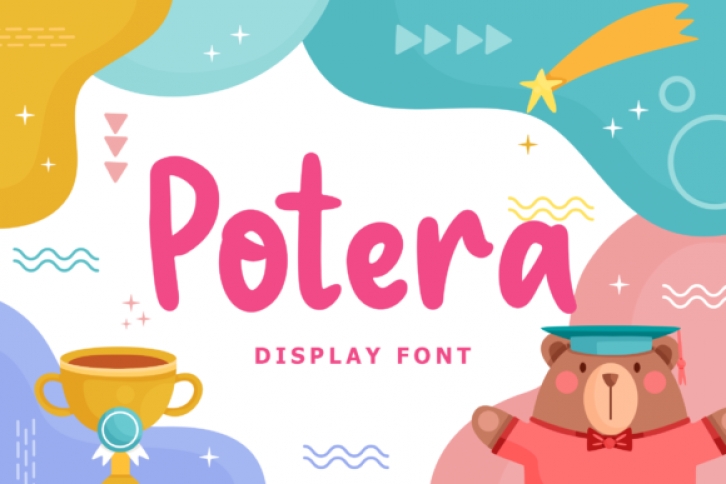
Potera is a cute and playful display font that will make children’s themed designs stand out! This is perfect for branding projects, logo, book cover design, tshirt designs, social media posts, advertisements, product packaging, product designs, label, watermark, invitation, stationery and more.